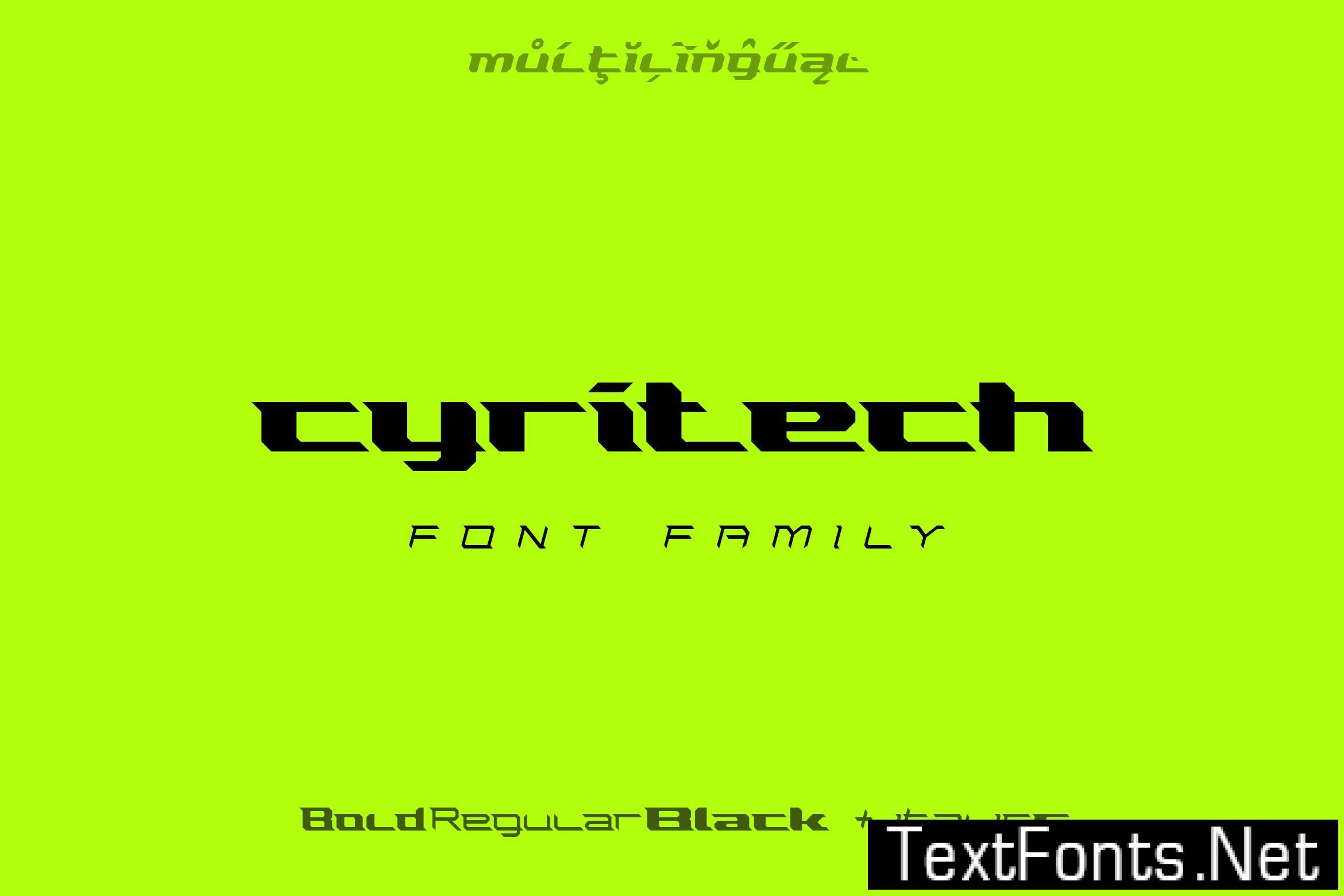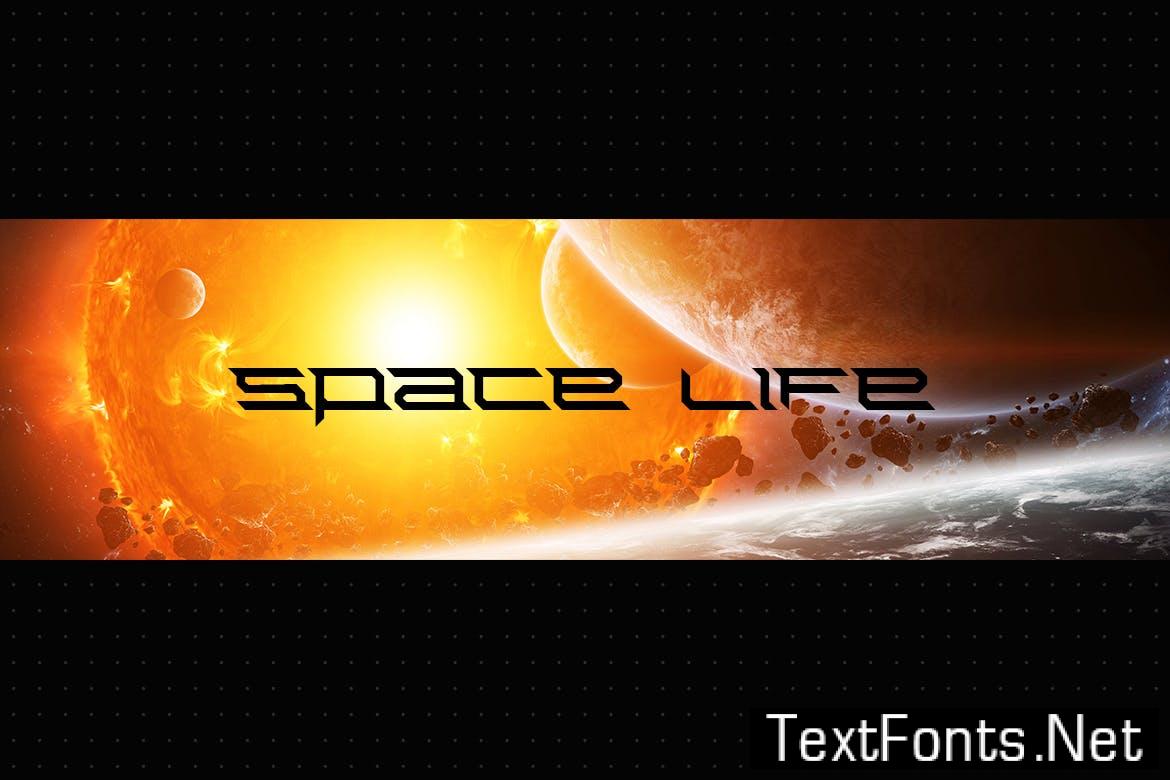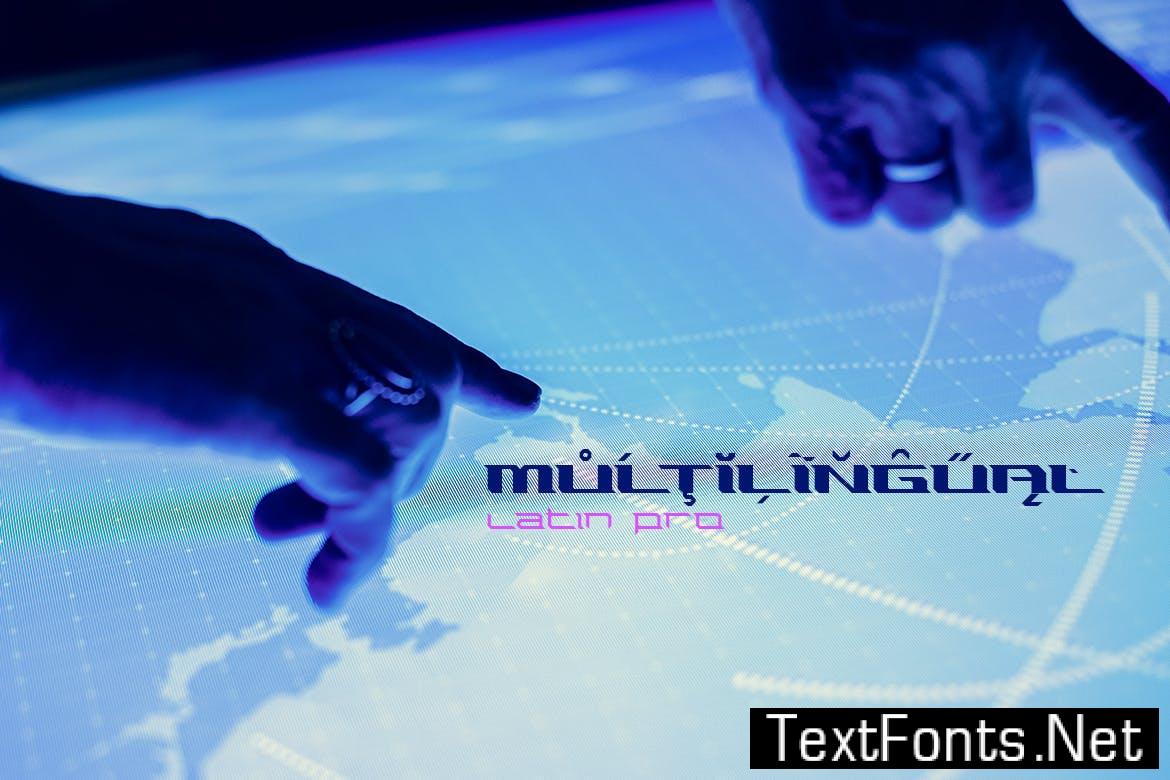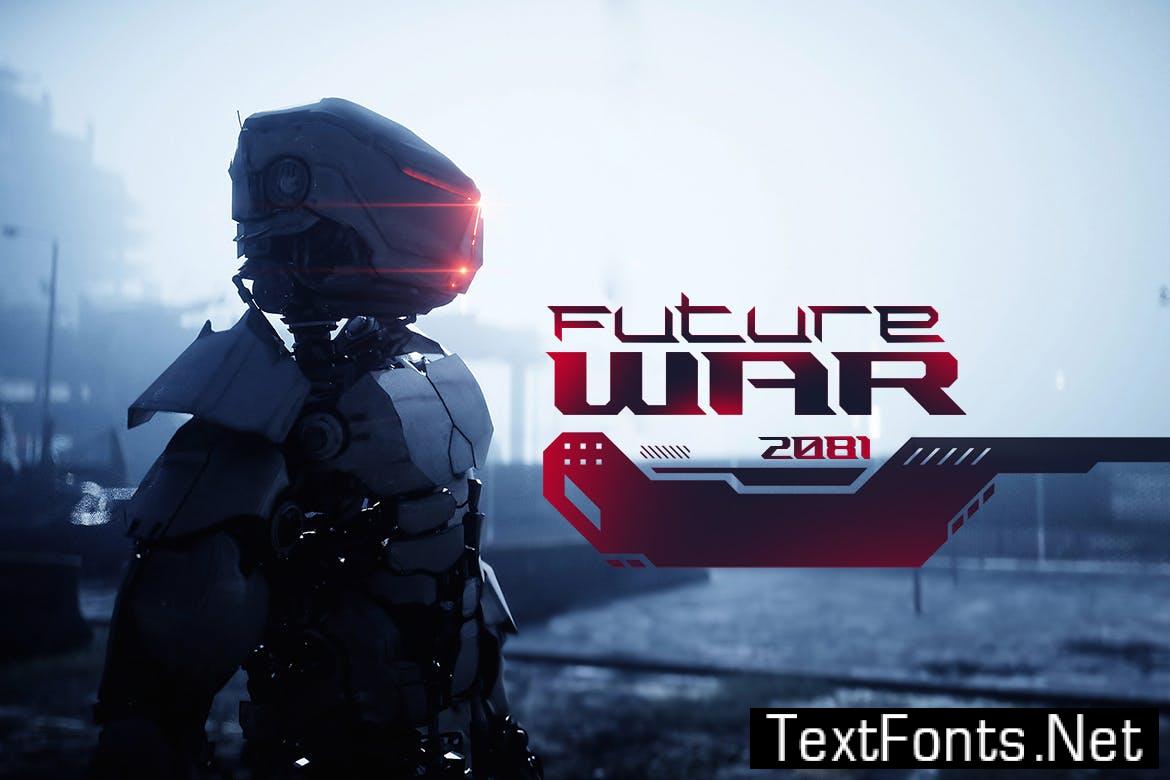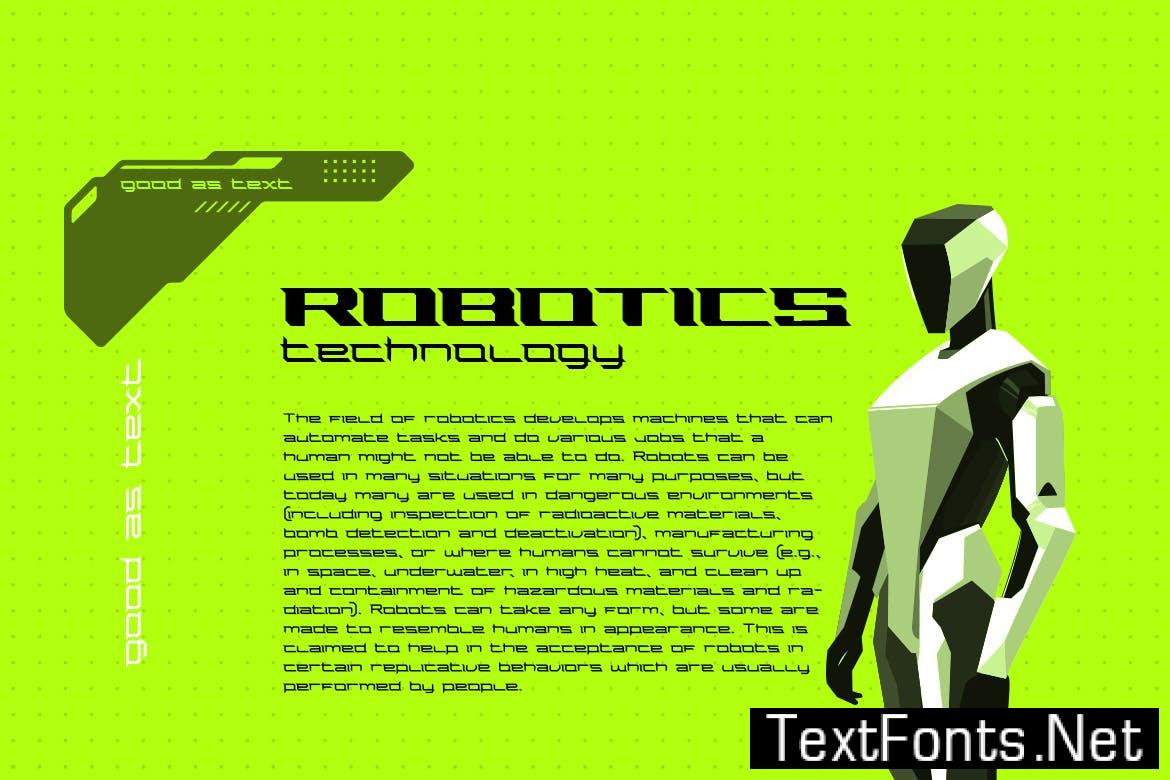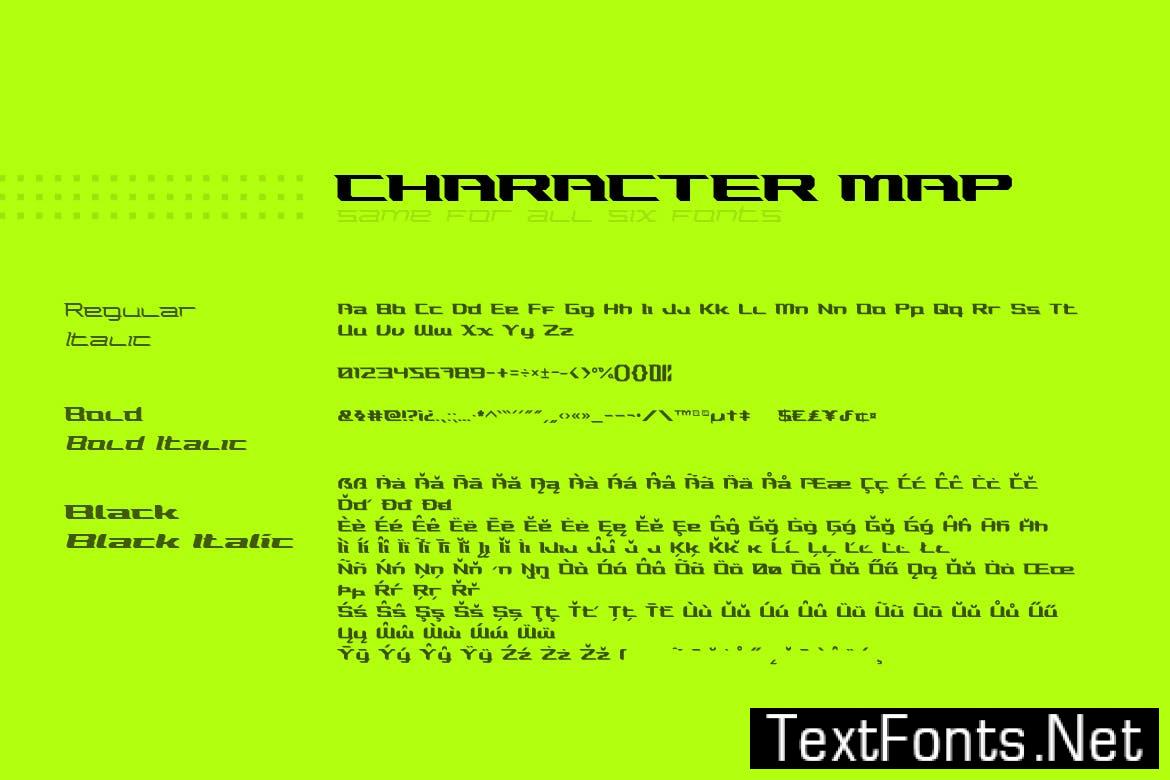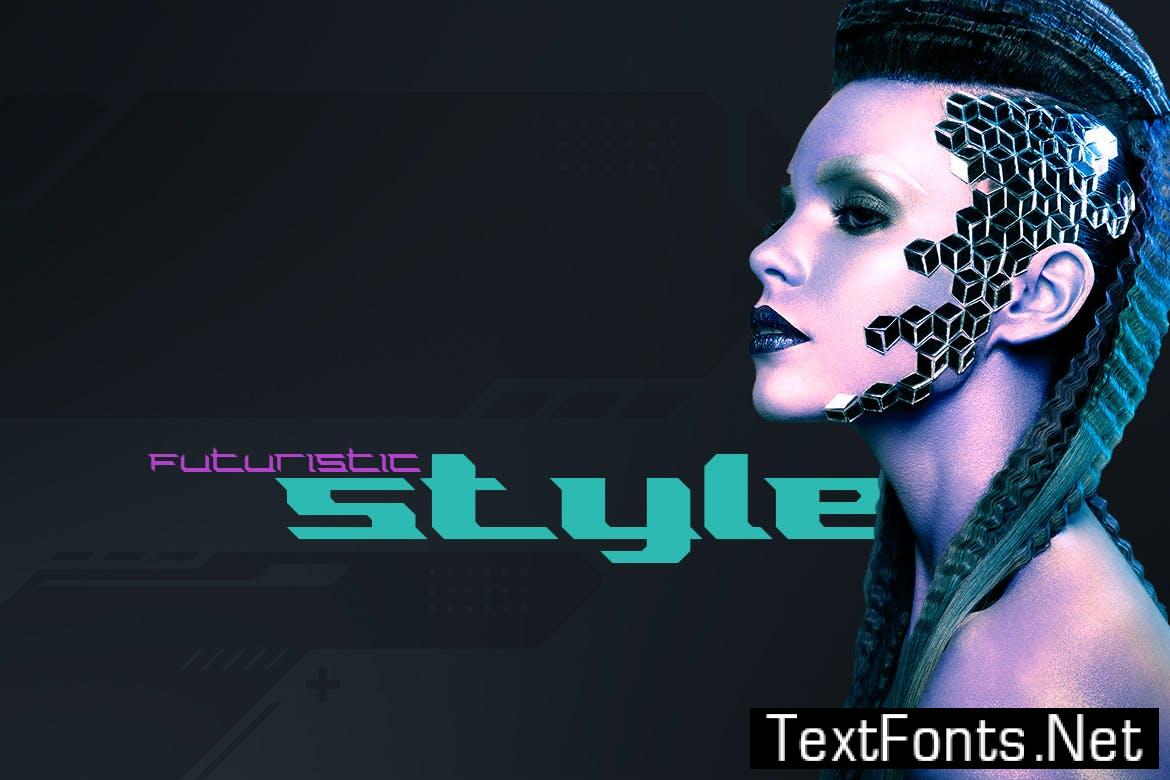
**Cyritech** is stylish futuristic geometric tech font family designed for such areas as hi-tech, future, sport, space, army, games and many others.
The main feature of this font that it has serifs of triangle shape, that allows organic letters’ conncetion, which makes it intersting and unique.
**Multilingual support:** *Bosnian, Catalan, Czech, Danish, German, English, Spanish, Estonian, Finnish, French, Irish, Croatian, Hungarian, Icelandic, Italian, Lithuanian, Latvian, Maltese, Norwegian, Polish, Portuguese, Romanian, Slovak, Slovenian, Albanian, Swedish, Turkish.*
It is designed for header and text both.